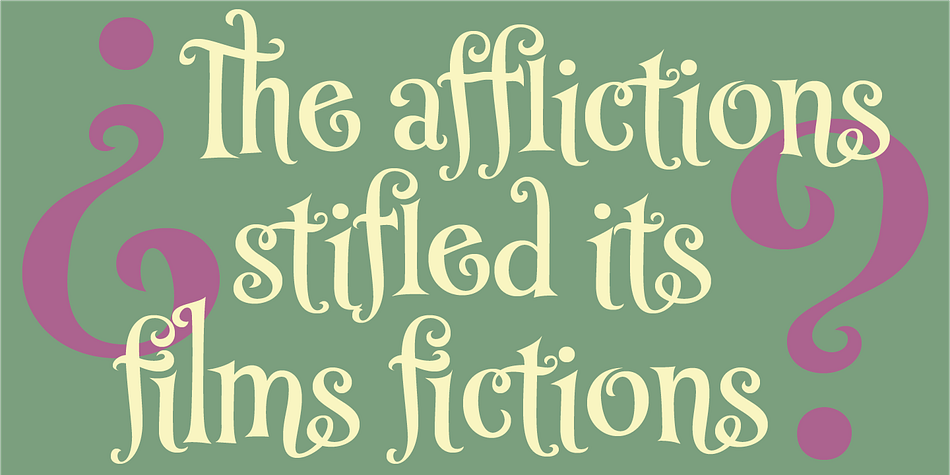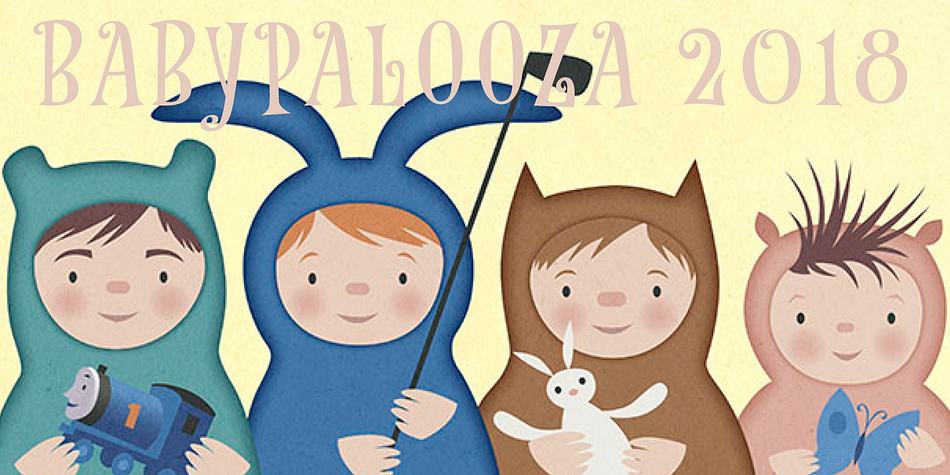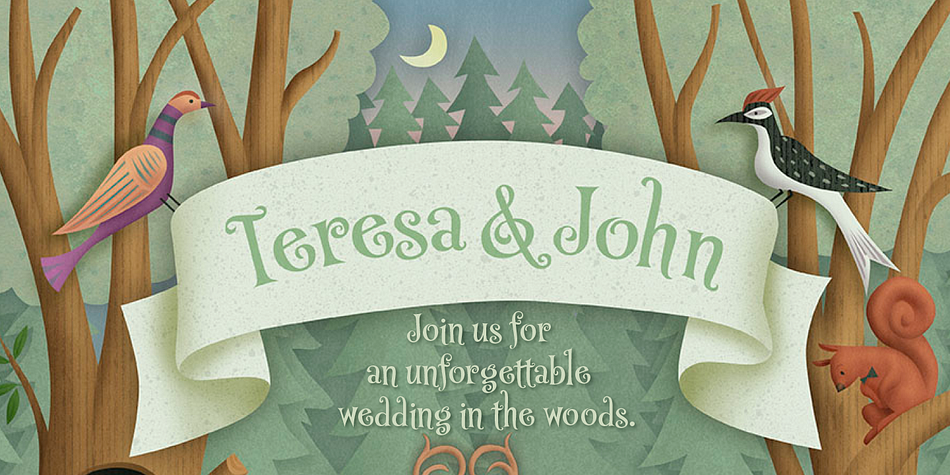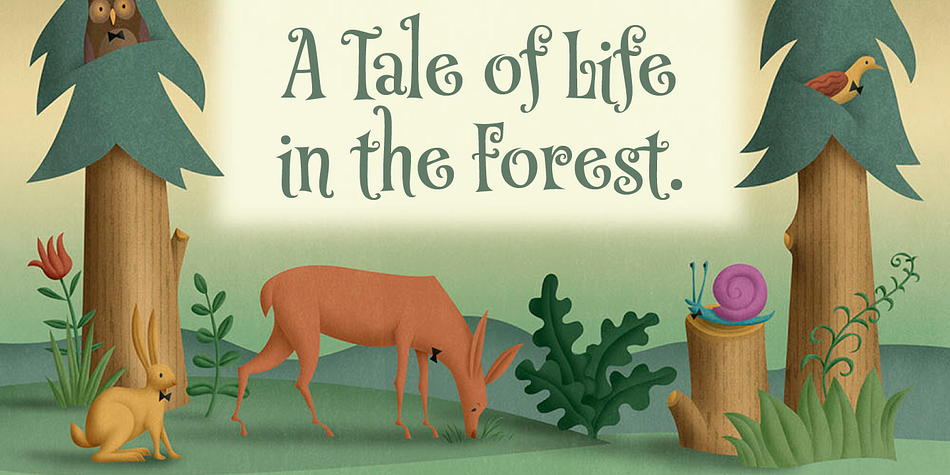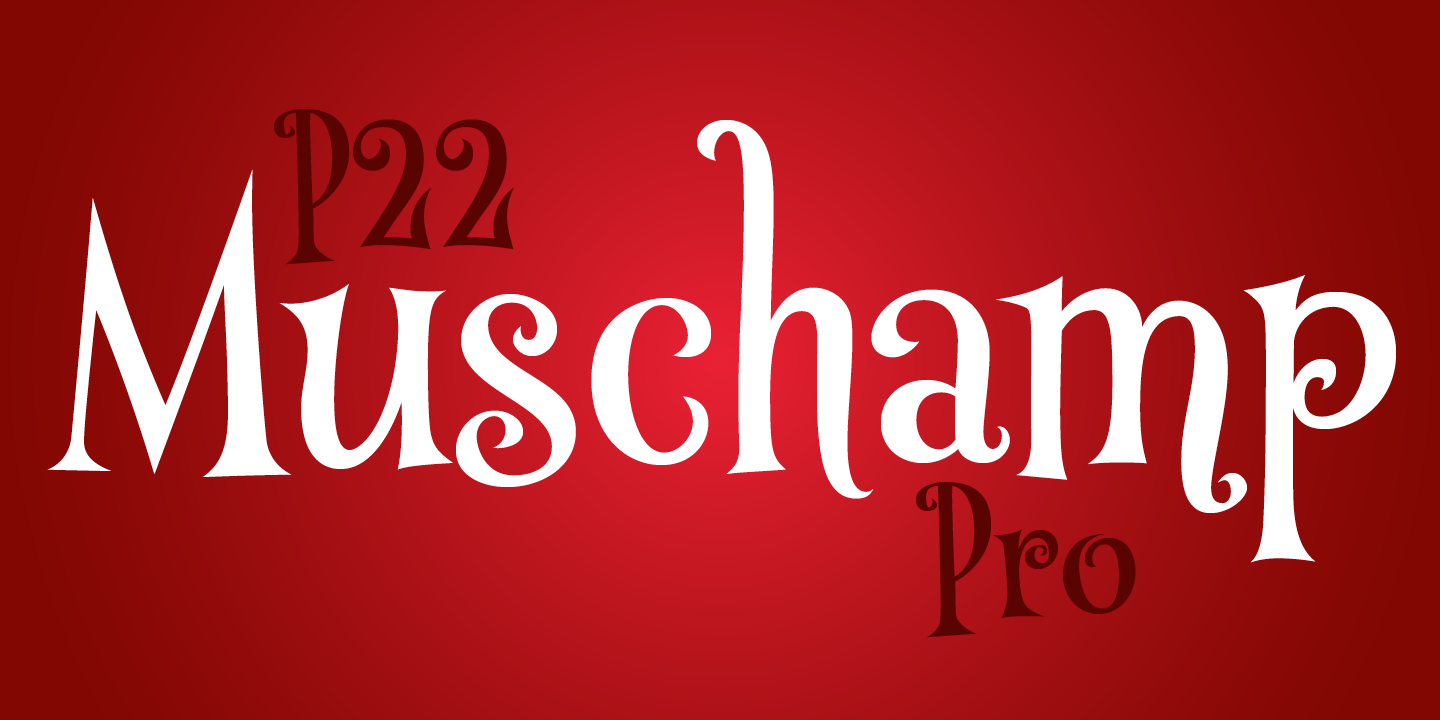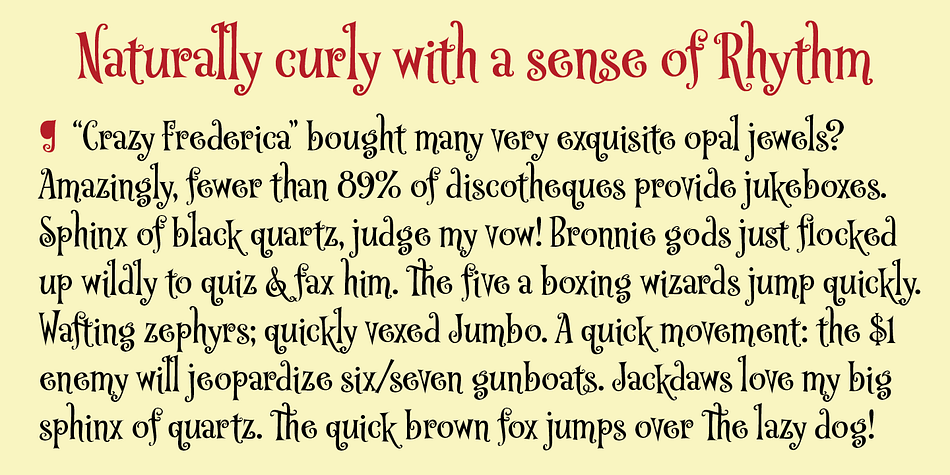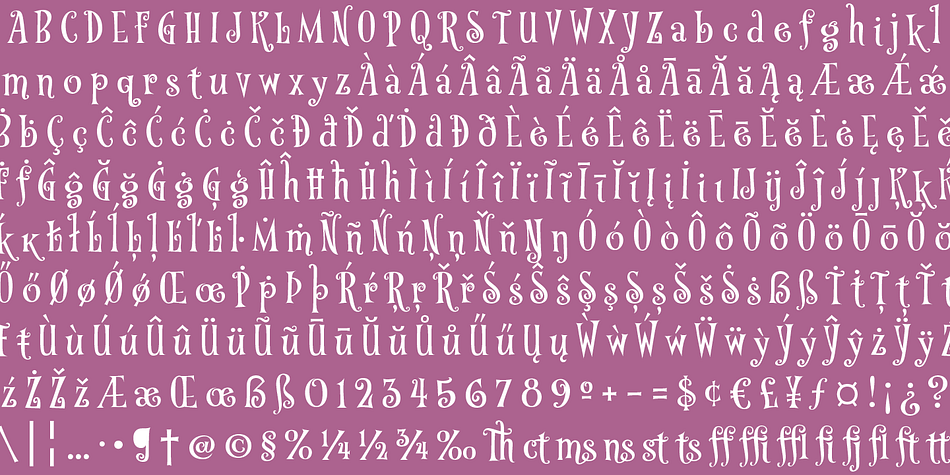
Designed by Tracy Sabin, P22 Muschamp is a display font published by International House of Fonts.
Prolific illustrator and veteran typographer Tracy Sabin draws on more than 40 years of multi-disciplinary design experience to bring us Muschamp Pro, a loopy, bouncy, free-form alphabet adaptable for many uses. It embodies the spirit of the massive art nouveau wave that broke out in the late 1950s and ingrained itself in popular culture for about three decades on both sides of the pond. Carefree, playful, rhythmic and versatile, this font evokes plenty of album jackets, children book covers, and cartoon titling from the times that really defined those design expressions and enshrined them as essential pop art.
Muschamp Pro comes with plenty of alternates, ligatures of both standard and discretionary varieties, and extended Latin language support, all contained in a glyphset of more than 500 characters. Use this font if you want your design to transmit a message of crafty and joyful activity.